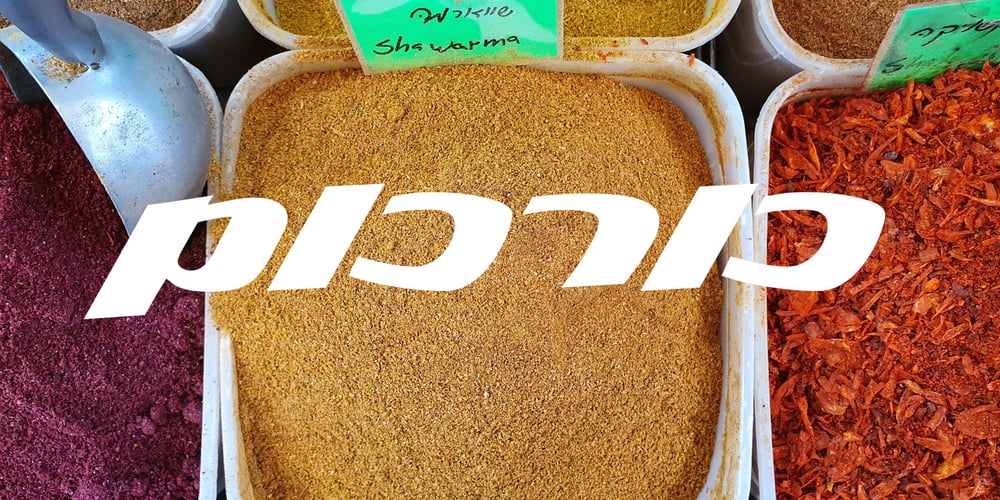
Holmim MF
Holmim MF font
Holmim MF Font Family was designed by Zvika Rosenberg and published by Masterfont. Holmim MF contains 1 styles and family package options. Here is a bold yet tender script font – ideal for logos and posters.